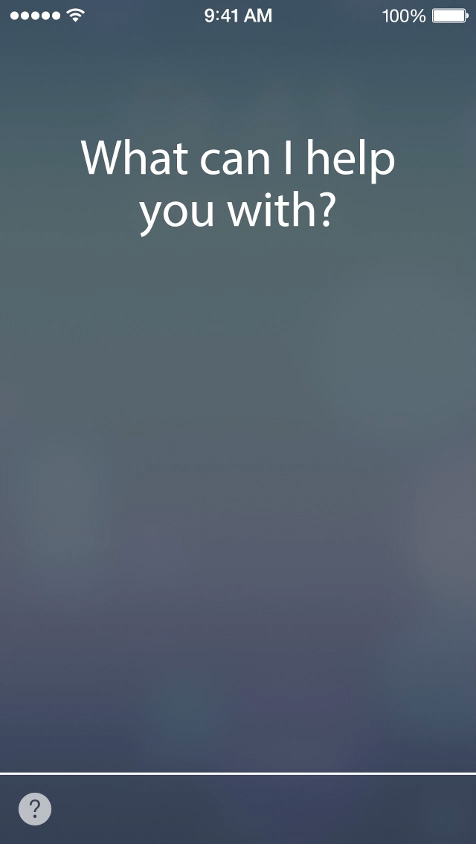
Did someone noticed that Apple is using ‹Myriad› (font) for Siri?
I don't know if ‹Myriad› is used in the beta versions but on the german iOS 7 website the font is used for «What can I help you with?».
Actually, ‹Myriad› looks a lot better than ‹Neue Helvetica›.
Its not being used on mine - iPhone 4s, Beta 3.